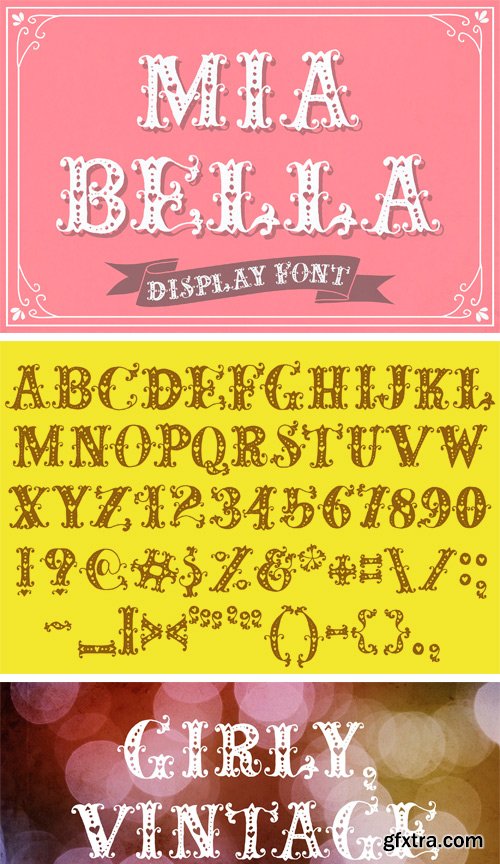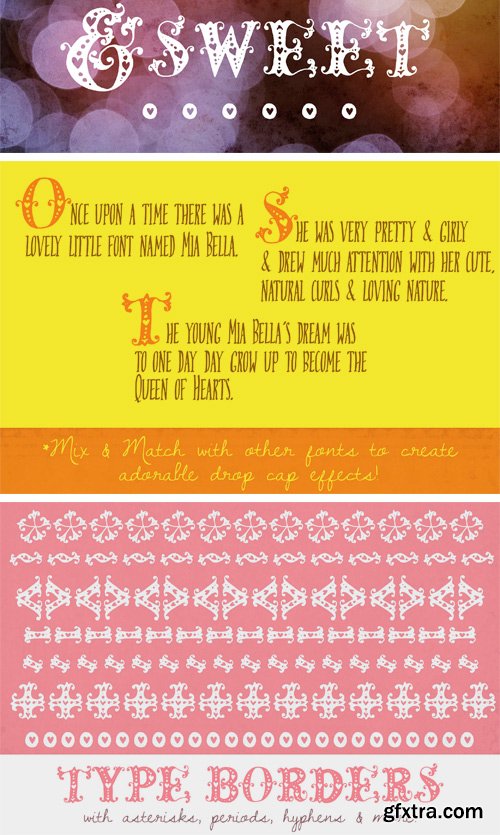
Mia Bella is a sweet, romantic, all-caps display font inspired by traditional Roman capitals and vintage lettering. She features curly silhouettes, and highly decorative detail work reminiscent of paper cut-outs & love letters.
You will just love using Mia Bella to create decorative typography, titles, drop caps and even borders! Simply type ***** ...... ~~~~~~ ``````` +++++ or ------ to create cute page dividers and borders. Or experiment with your own combinations!